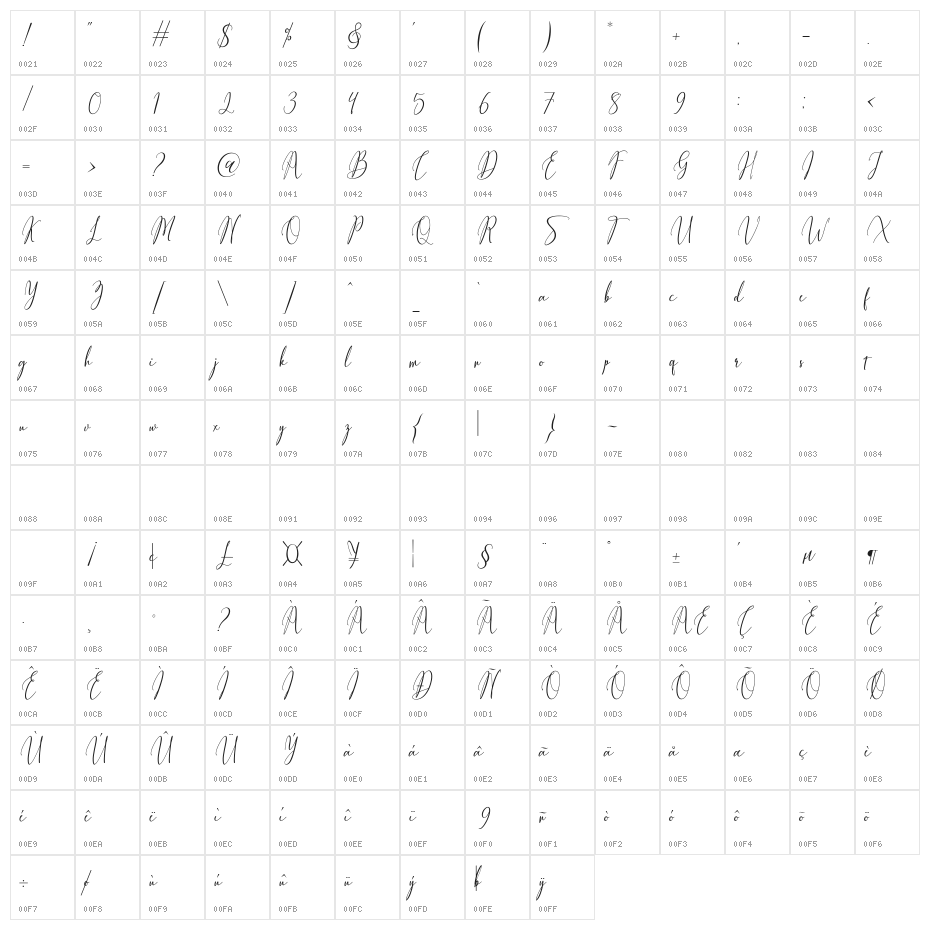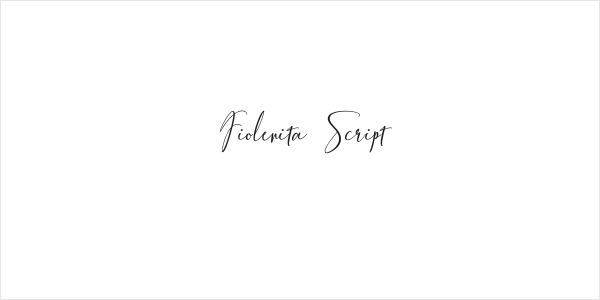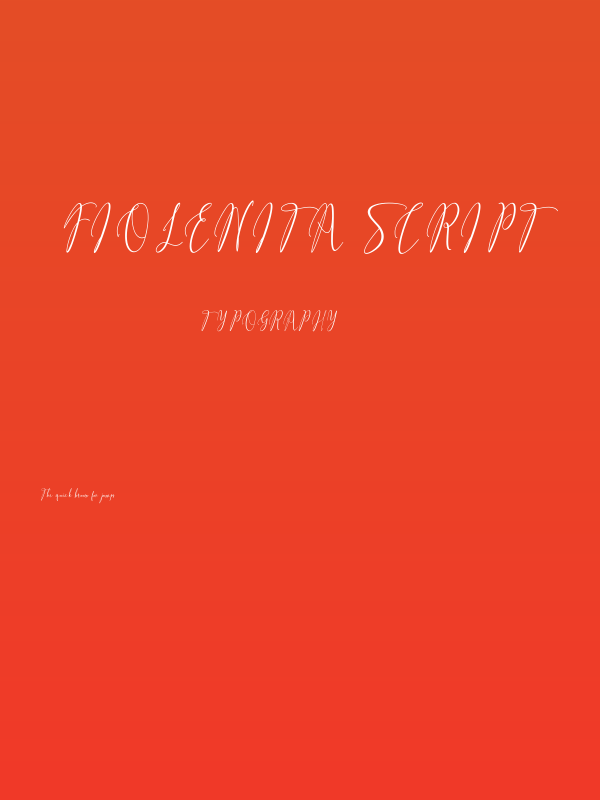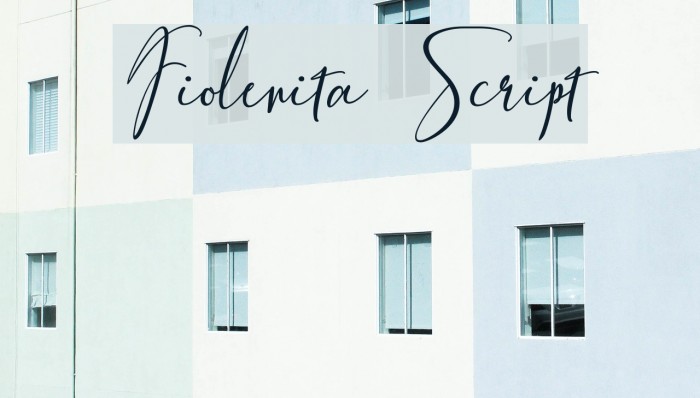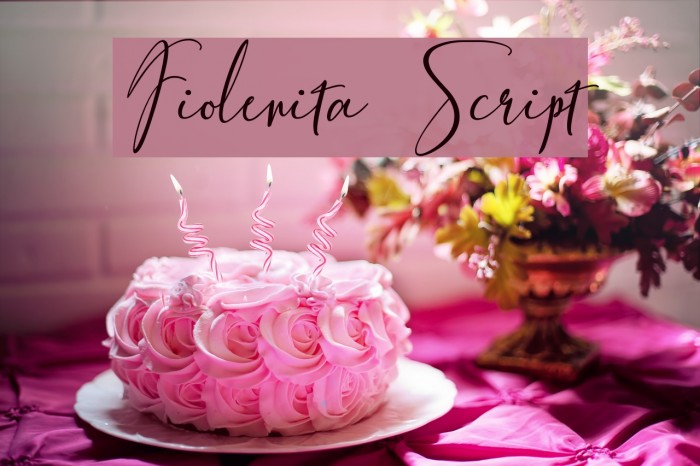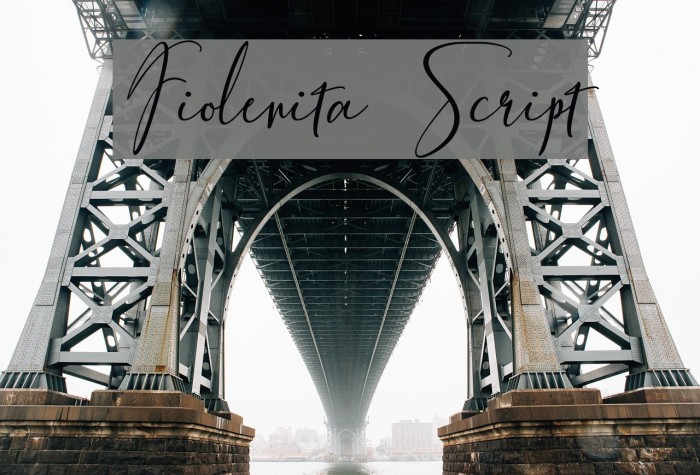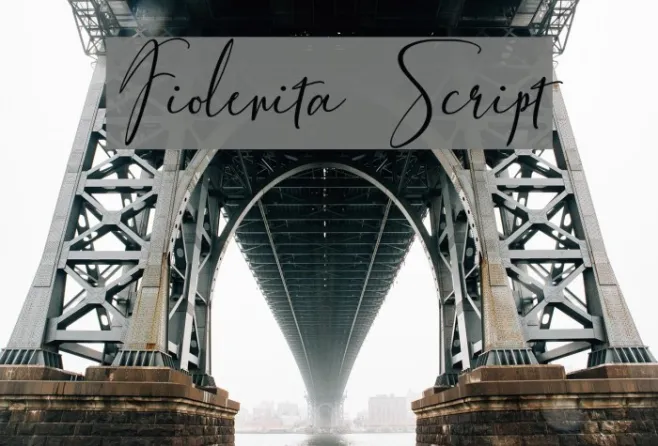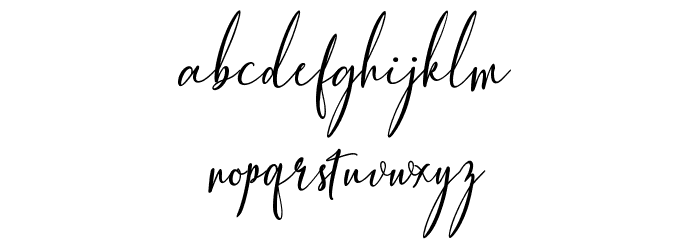
Fiolenita Script Font
Fiolenita Script Description
This elegant script font features a flowing, cursive style with a sophisticated and artistic flair. The uppercase letters are characterized by their tall, slender forms and graceful loops, while the lowercase letters maintain a consistent fluidity and charm. The numerals are designed with a similar elegance, offering a cohesive look across all characters. Special characters are thoughtfully integrated, maintaining the font's overall aesthetic. This script is perfect for adding a touch of class and personality to any design project.
| Use Case | Logos, Invitations, Decorative Text |
| Proposed Projects | Ideal for wedding invitations, greeting cards, branding, and elegant logo designs. |